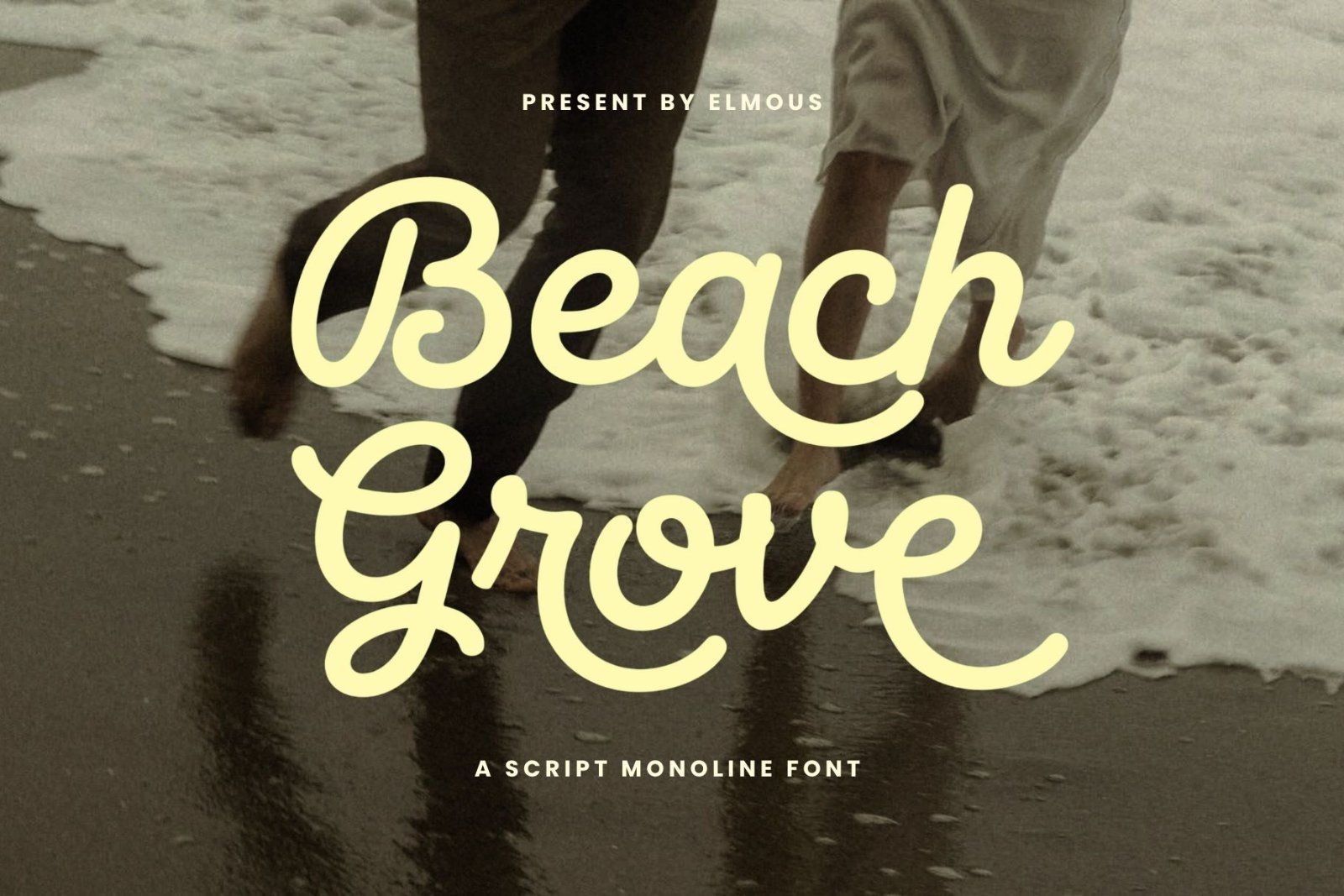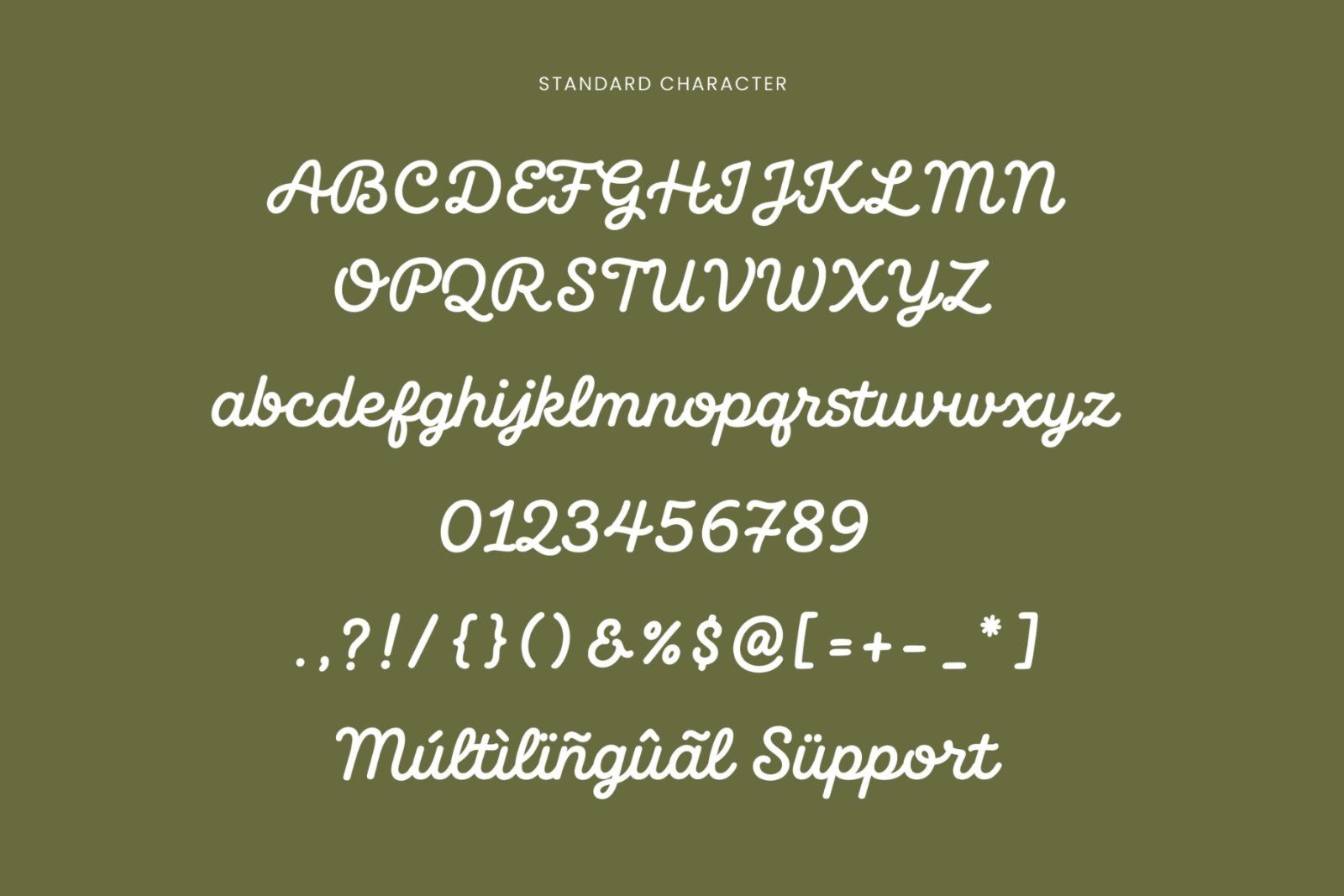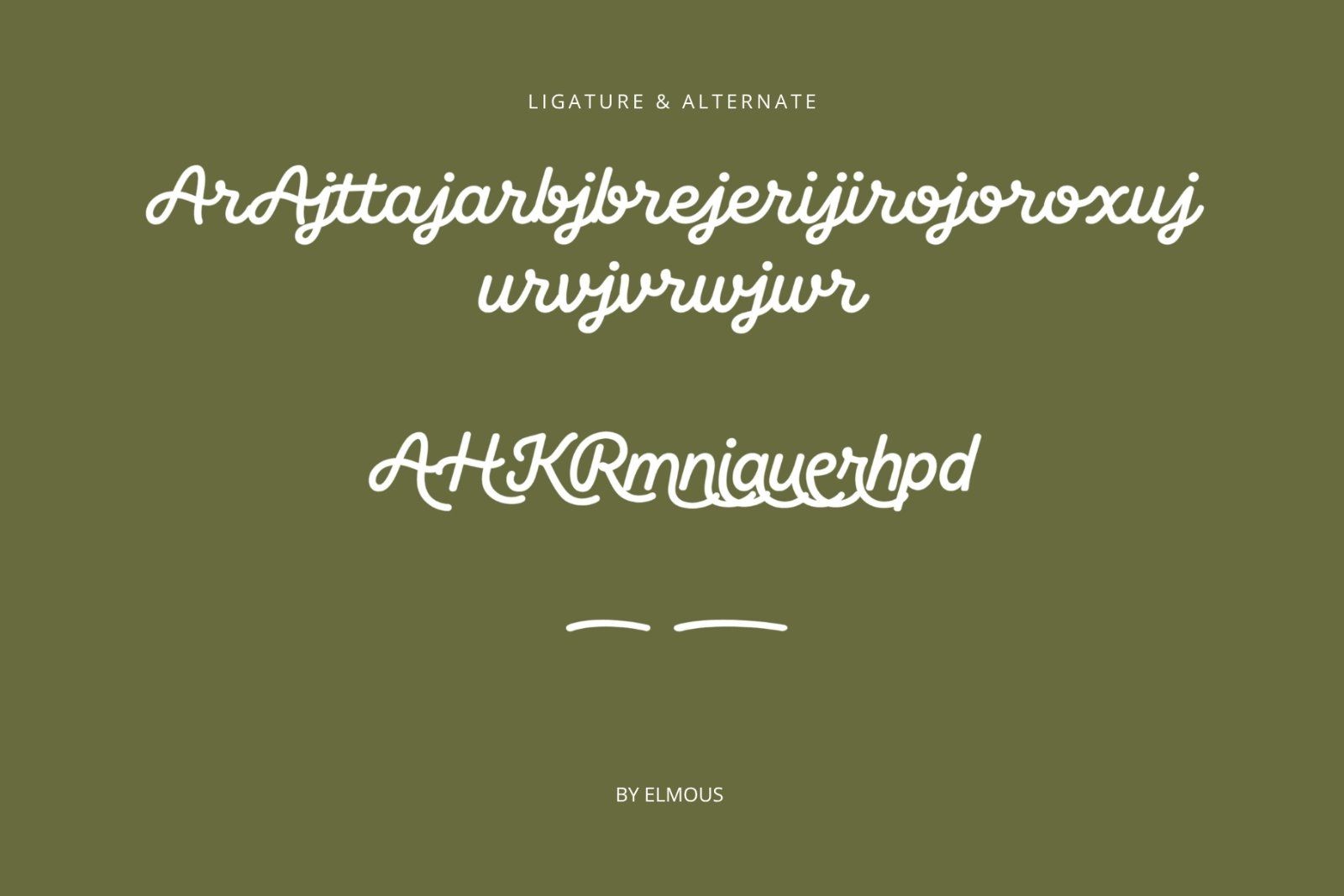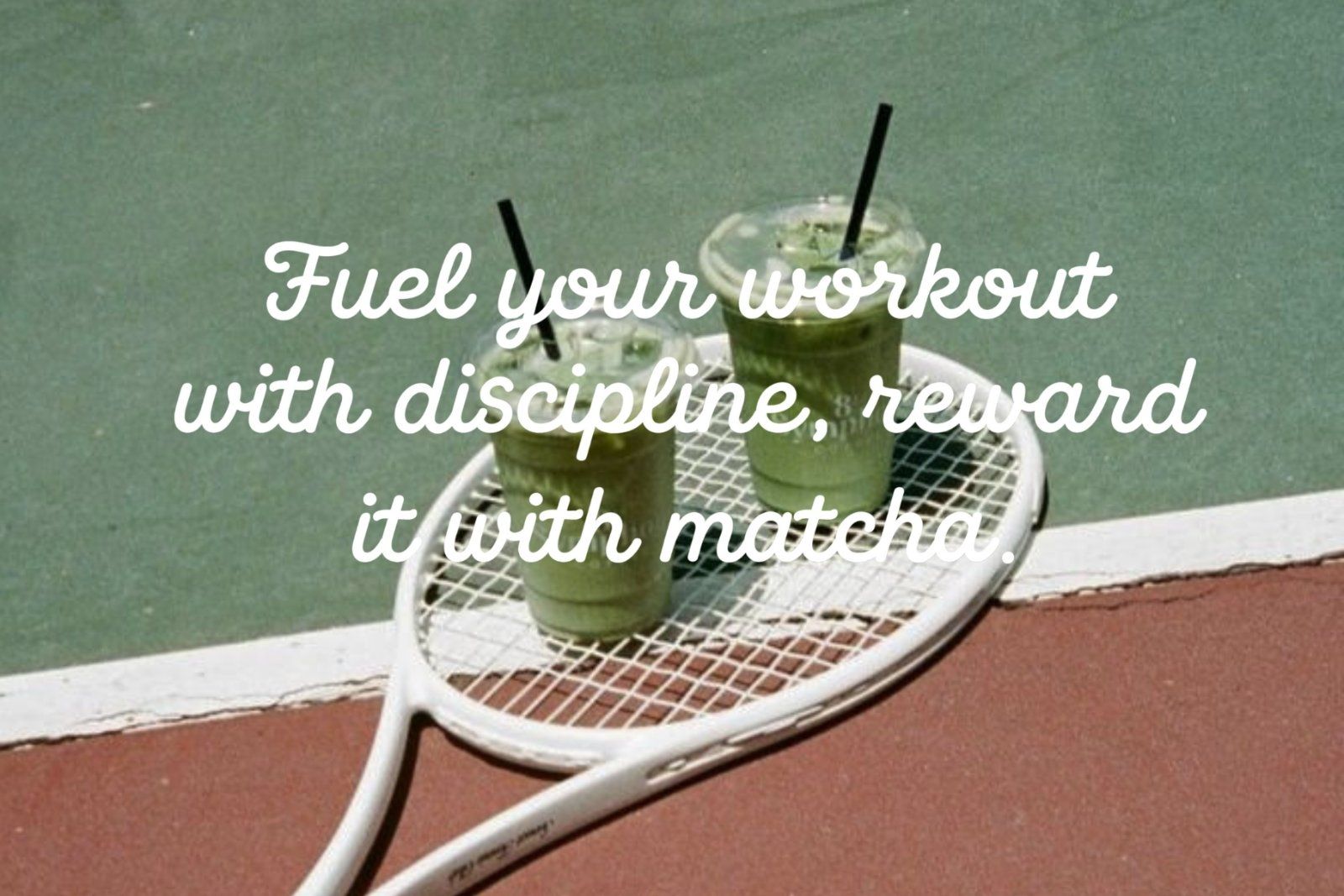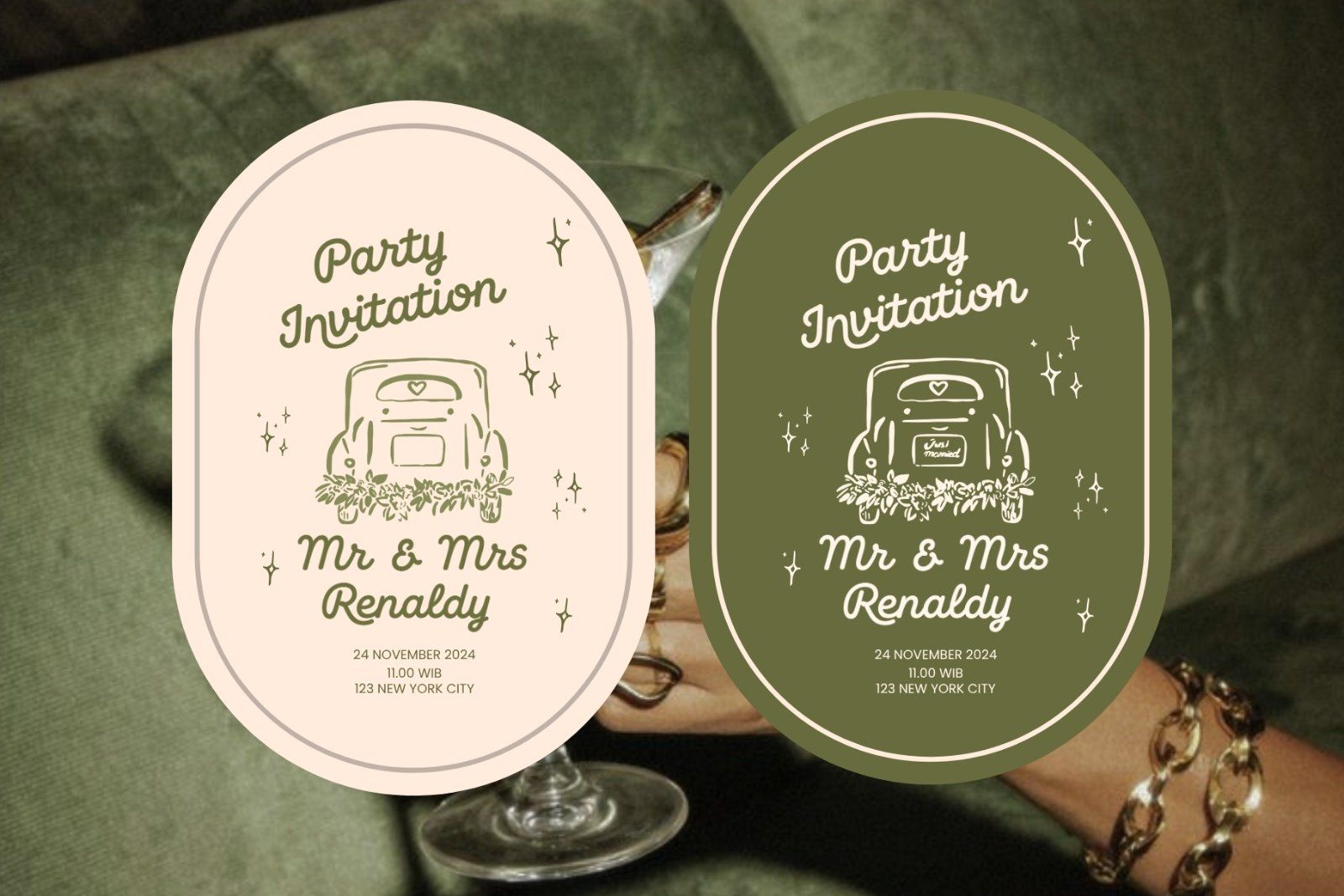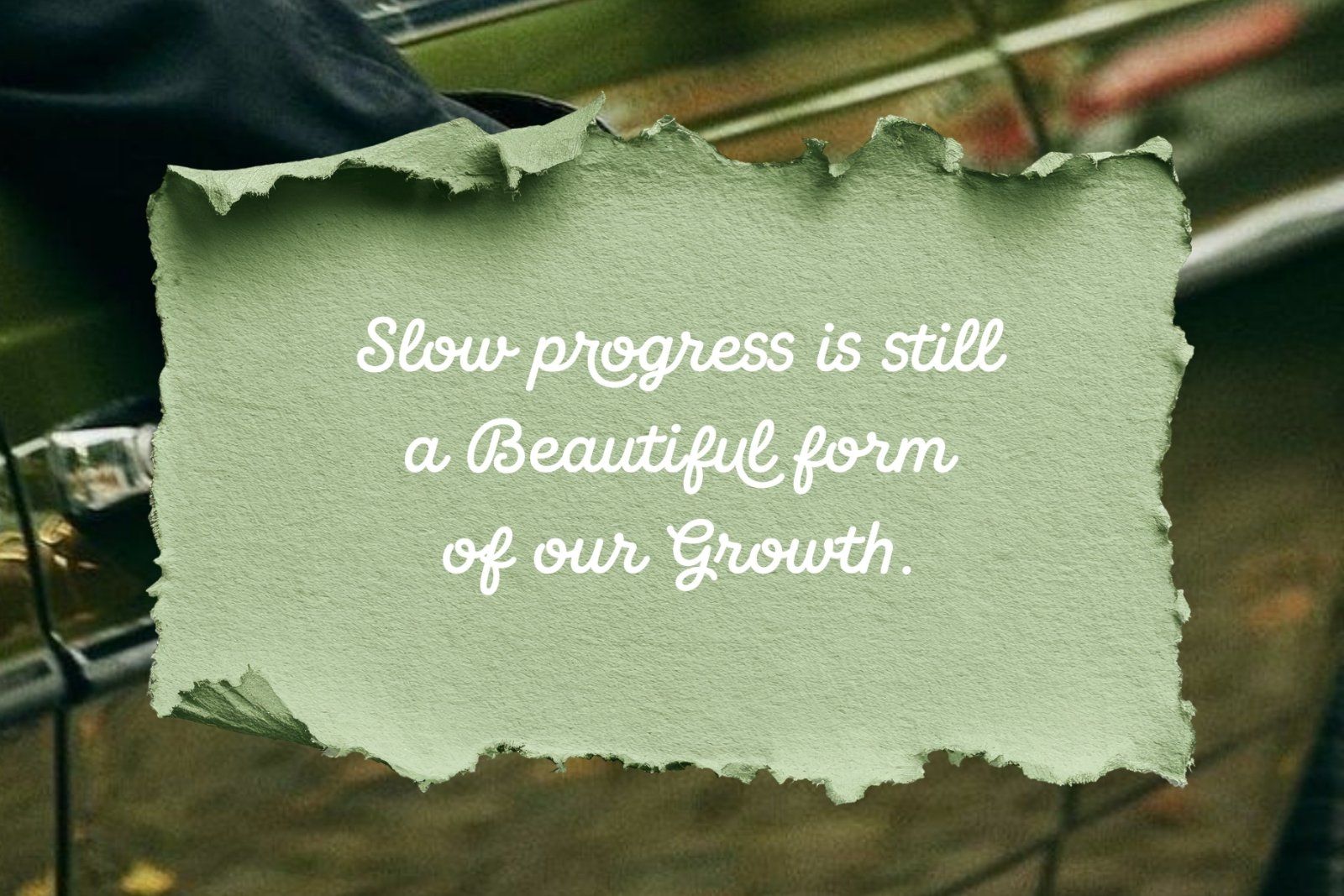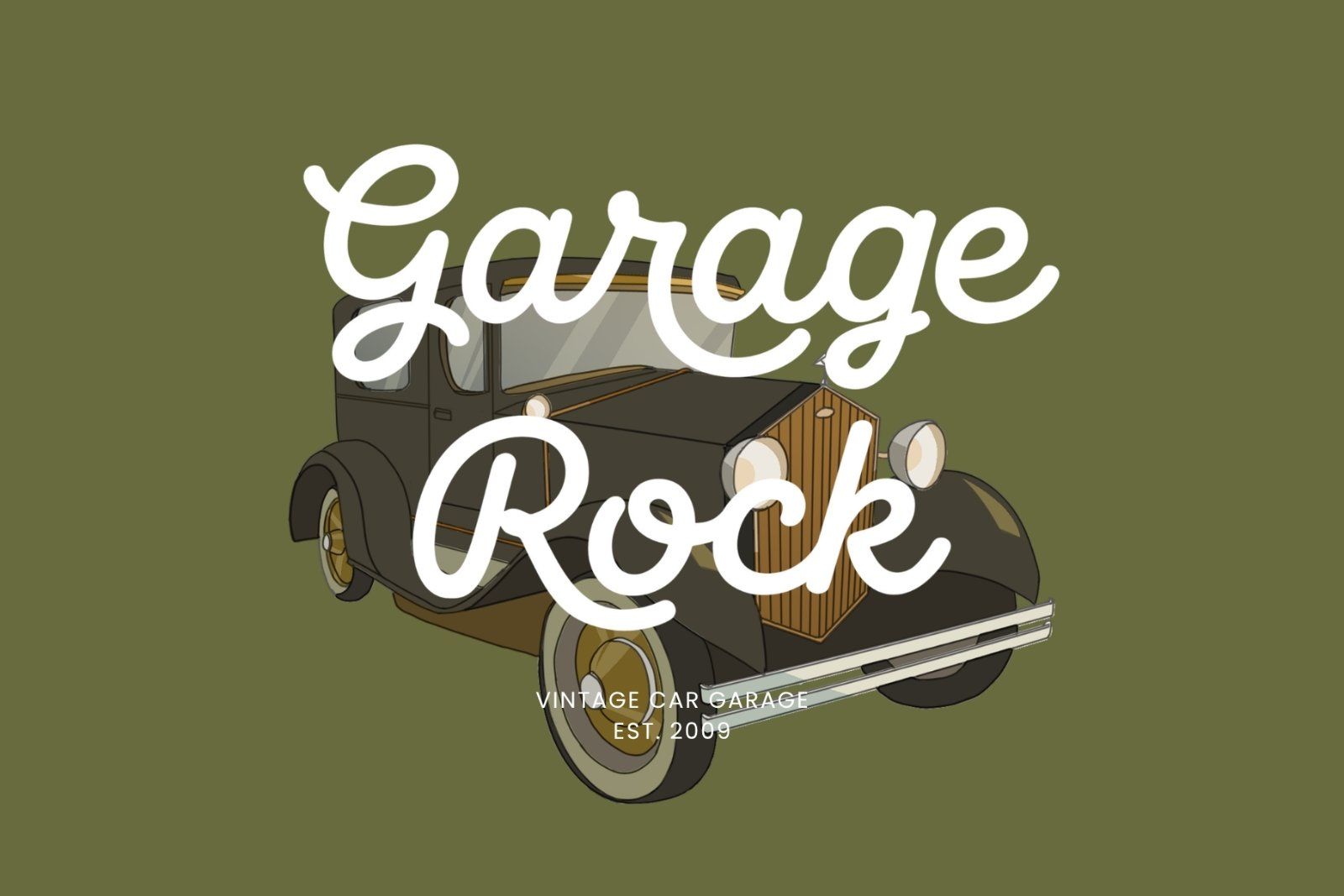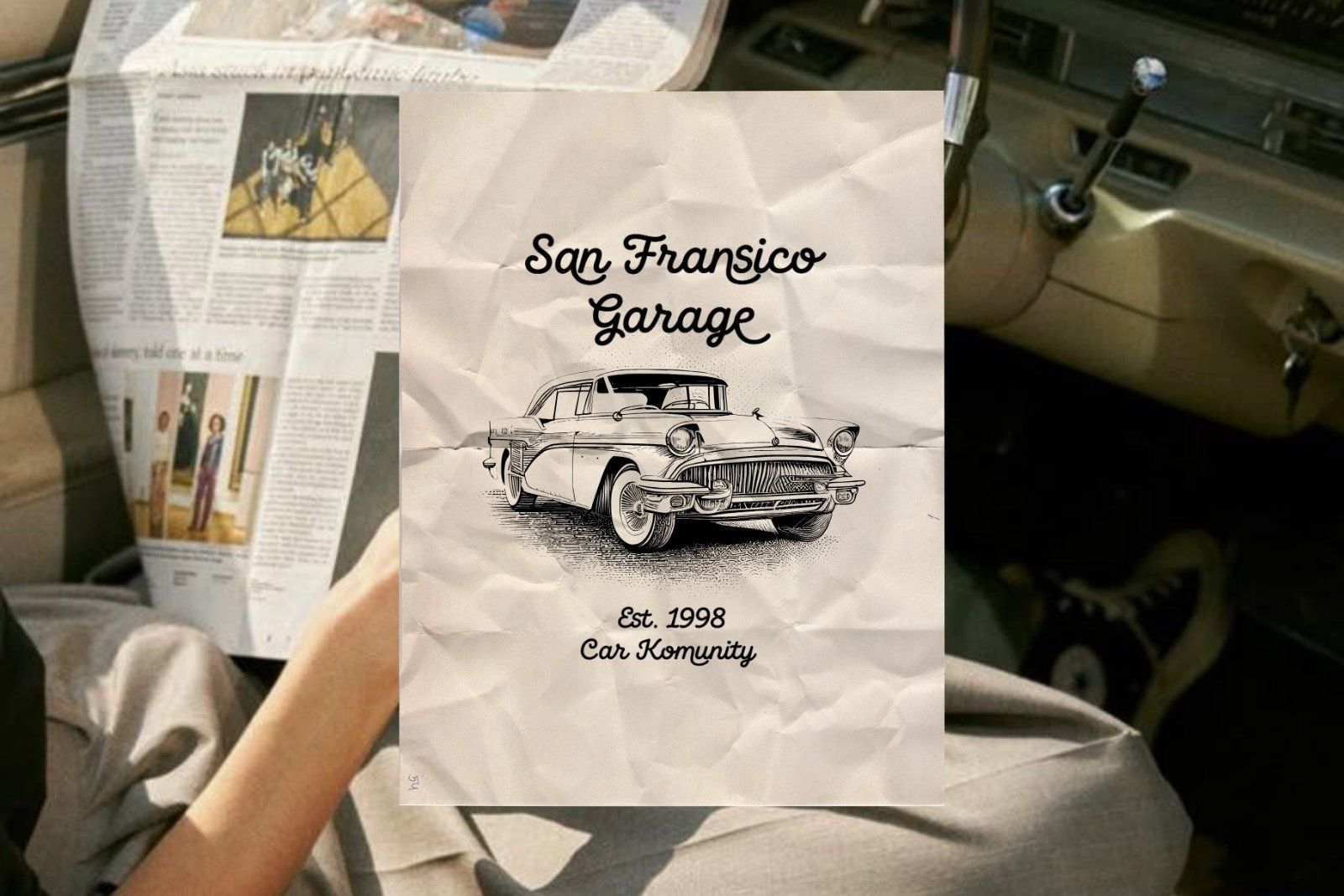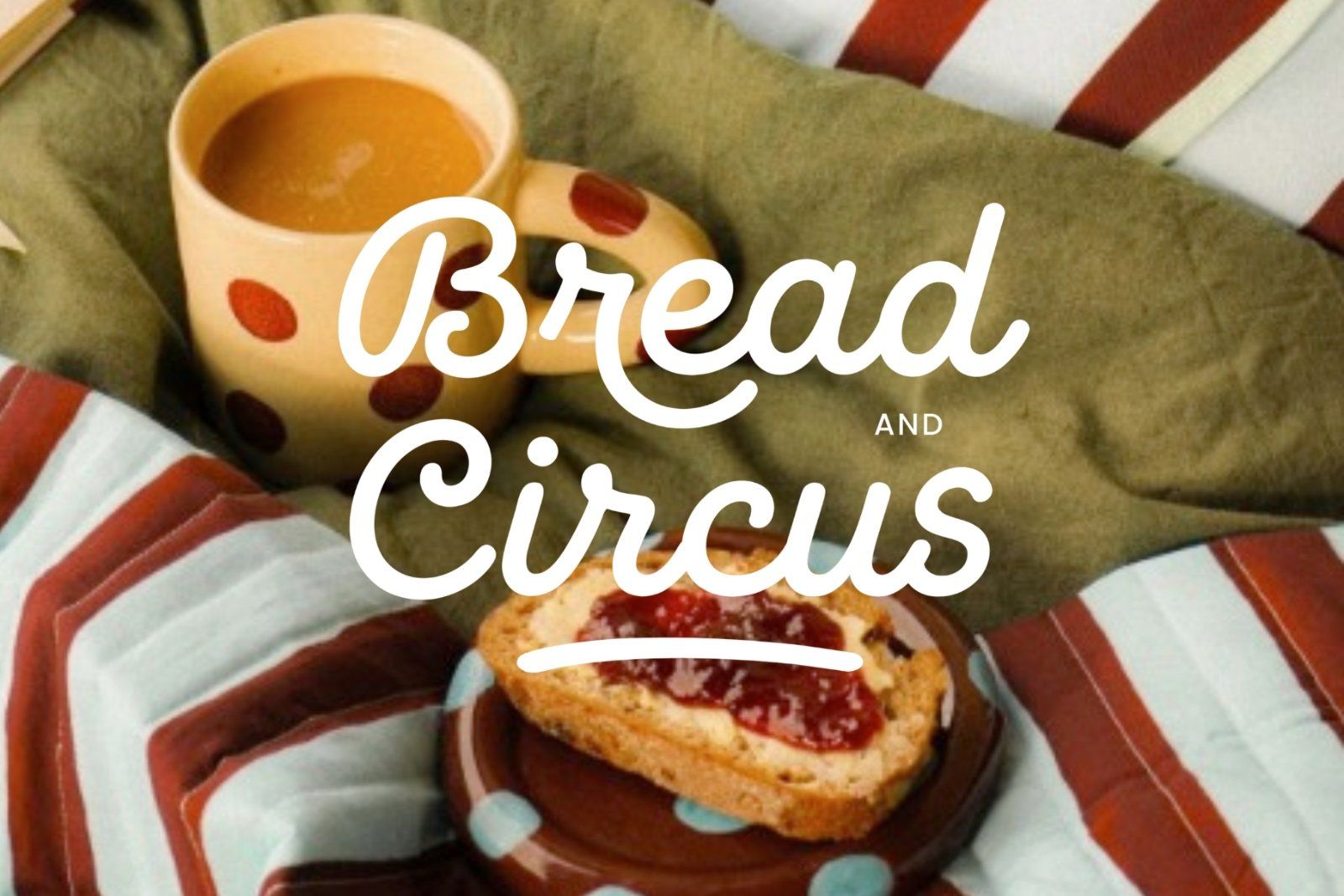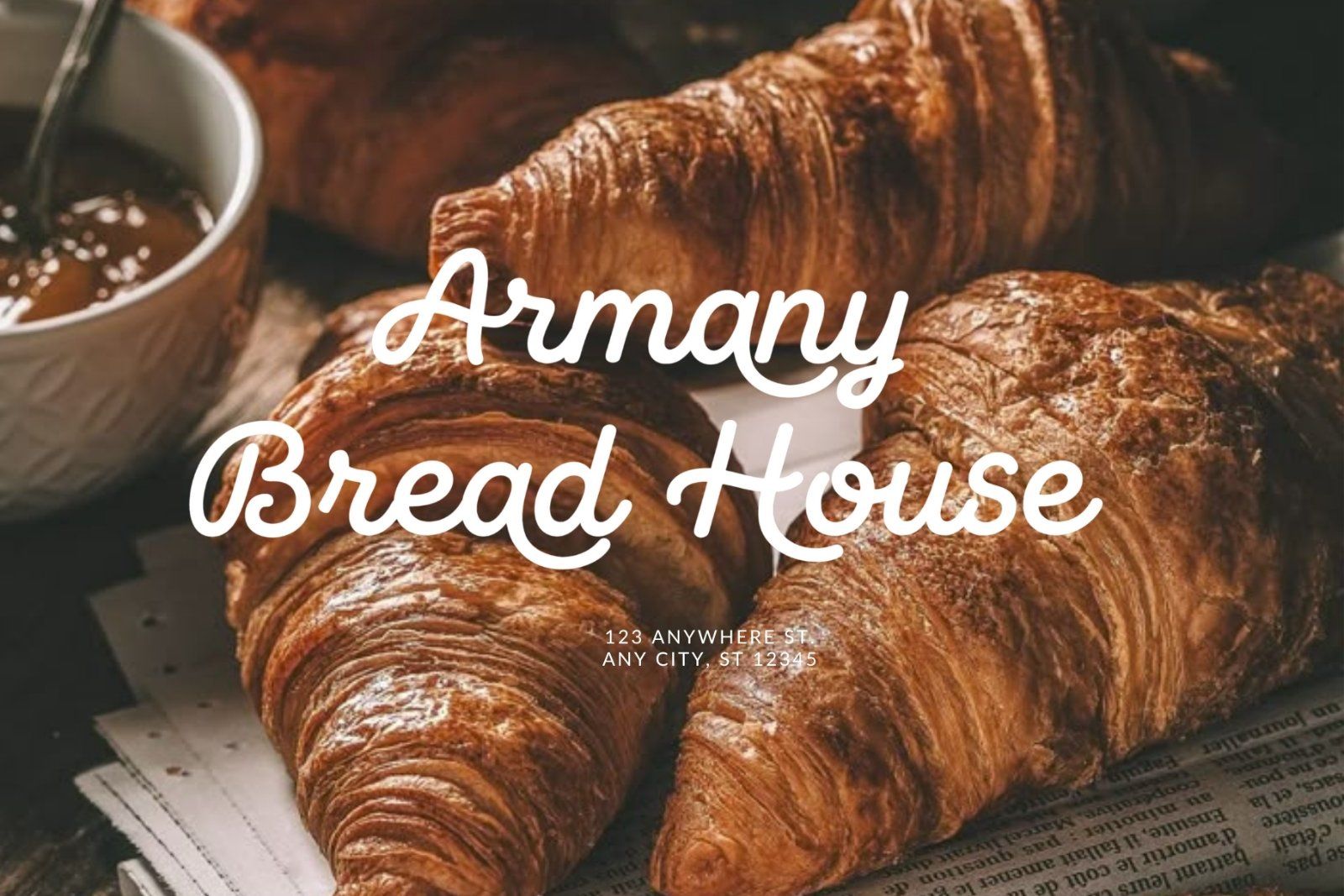
Bring a breezy, nostalgic, and effortlessly cool vibe to your designs with Beach Grove, a beautifully crafted monoline script font. This typeface perfectly balances casual elegance with a playful retro charm.
This font flowing, connected loops give a relaxed and lends a friendly, personal touch feel, making it perfect for editorial headers, inspirational quotes, social media graphics, and charming picnic or party invitations, and food branding.
Beach Grove is easily transitions into vintage chic, looking right at home on classic car club logos, bakery storefront signage, and elegant wedding stationery.
Whether you are crafting custom merchandise, branding a trendy cafe, designing invitations, or packaging artisanal goods, Beach Grove delivers a warm, hand-drawn aesthetic that connects with your audience.
• Uppercase and Lowecase Characters.
• Numerals and Punctuations.
• Alternates and Ligatures.
• Multilingual Support.